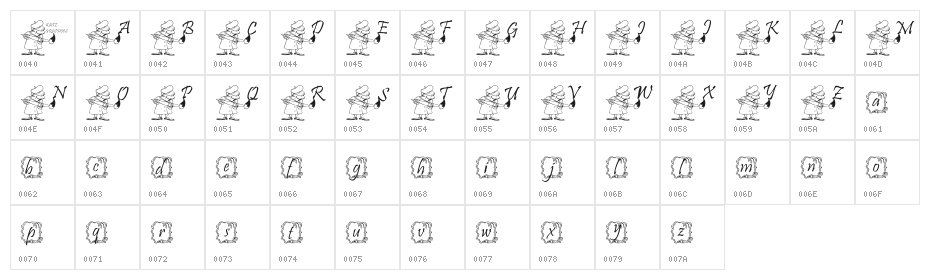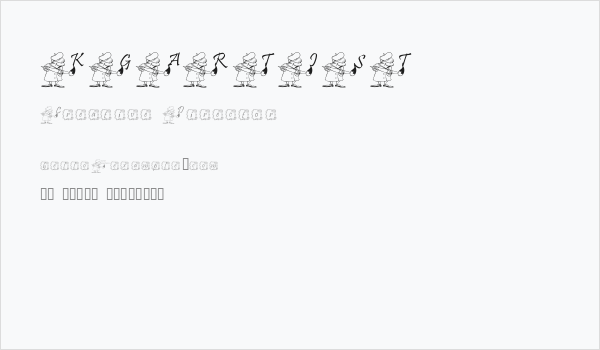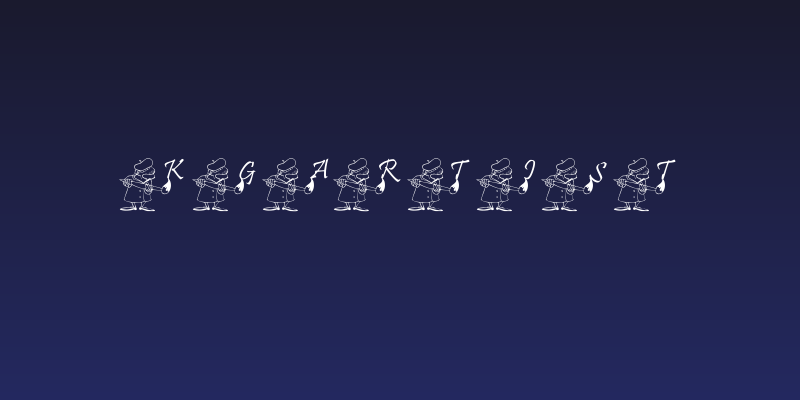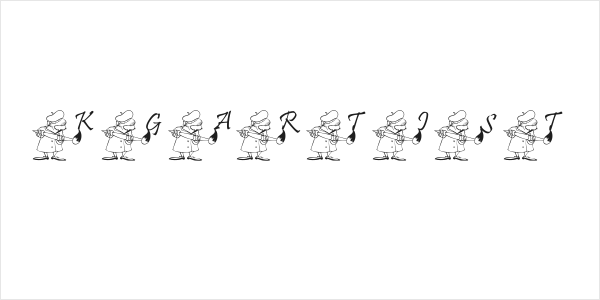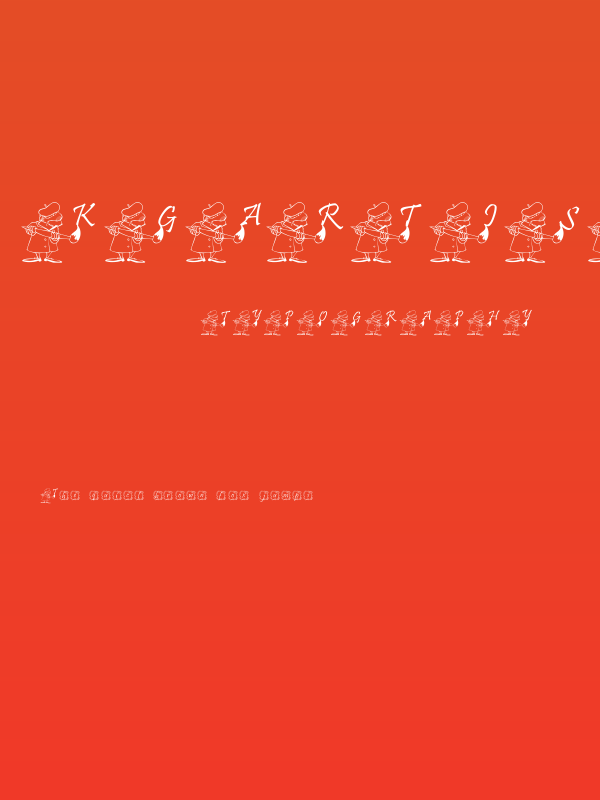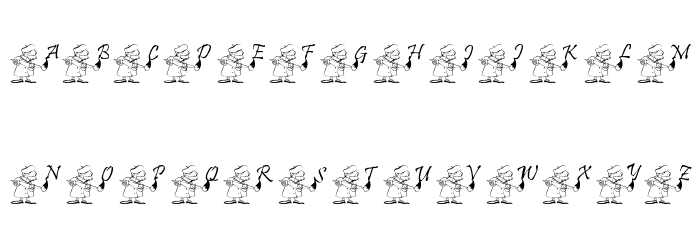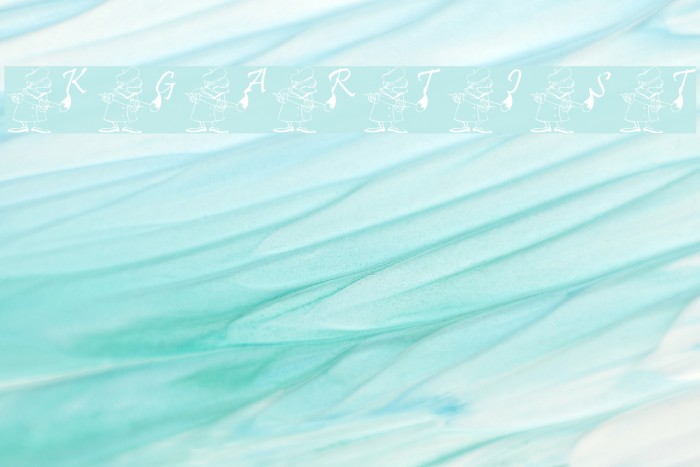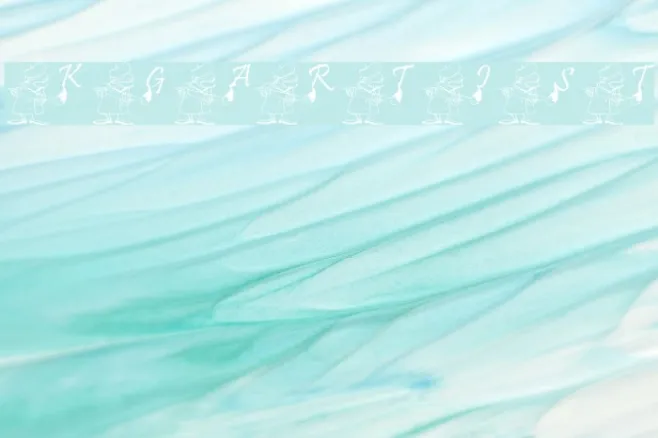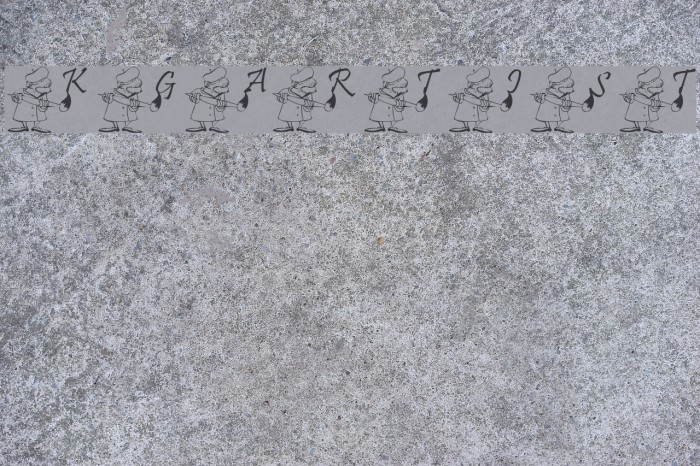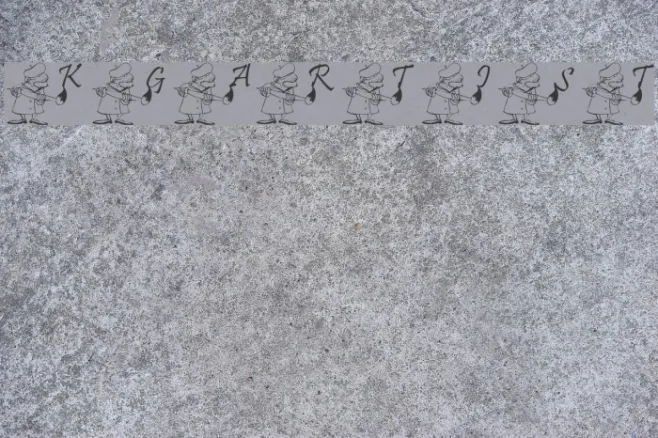
KGARTIST Font
KGARTIST Description
This playful and whimsical font features a unique combination of cartoon-like characters and decorative elements. Each uppercase letter is accompanied by a small cartoon figure, adding a lively and fun touch. The lowercase letters are enclosed in ornate frames, giving them a distinct and artistic appearance. The font's style is both decorative and illustrative, making it stand out with its creative flair. It is ideal for projects that require a lighthearted and engaging visual element, such as children's books, playful invitations, or creative branding materials.
| Overall Style | Playful and Artistic |
| Use Case | Headlines, Logos, Decorative Text |
| Proposed Projects | Children's books, playful invitations, creative branding materials, educational materials, and greeting cards. |